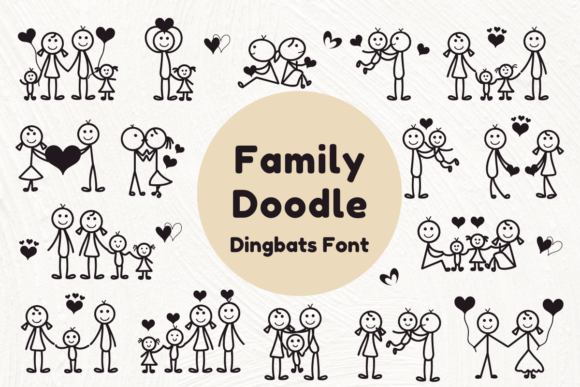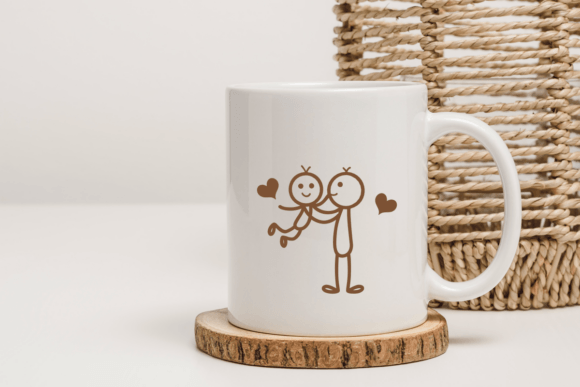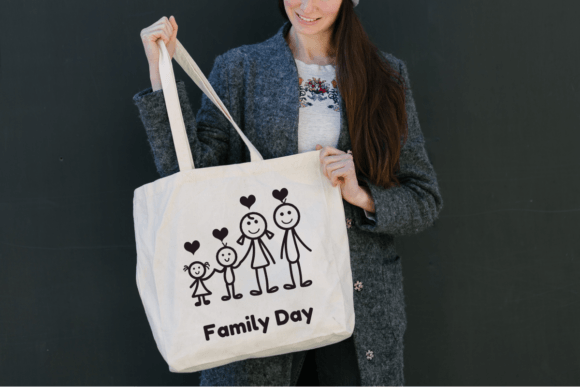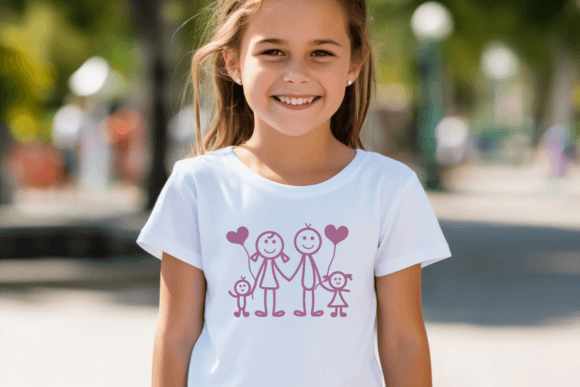
Family Doodle Font
About the Family Doodle Font
From logos to headlines, the Family Doodle Font is the perfect choice for making a lasting impression. Celebrate love, family, and connection with the charming Family Doodle Dingbats Font! Featuring adorable stick figure illustrations of families in heartwarming poses, this font is perfect for scrapbooking, cards, kid-friendly designs, and DIY projects. Add a whimsical, personal touch to your creative work with these playful family-themed doodles.
Family Doodle is best suited for headlines, short text blocks on invitations or greeting cards, and children’s book illustrations. Its whimsical nature makes it ideal for branding projects targeting young audiences or emphasizing a playful, family-oriented message. Avoid using it for body text or lengthy paragraphs; its low readability at smaller sizes would hinder user experience.
The font’s playful and friendly personality pairs well with clean sans-serif fonts like Open Sans for body text, offering a contrast that maintains visual interest without being overwhelming. For a more sophisticated feel, consider pairing it with a delicate script font like Great Vibes for elegant flourishes in secondary text elements. Avoid pairing it with heavy or geometric sans-serifs, which might clash with its hand-drawn charm.
In essence, Family Doodle’s core personality is friendly and approachable. Its informal style makes it unsuitable for formal settings or projects requiring a high degree of professionalism. But for projects that value warmth and approachability, it can be a charming and effective choice.
Family Doodle Font Usage Examples
Family Doodle Font Example